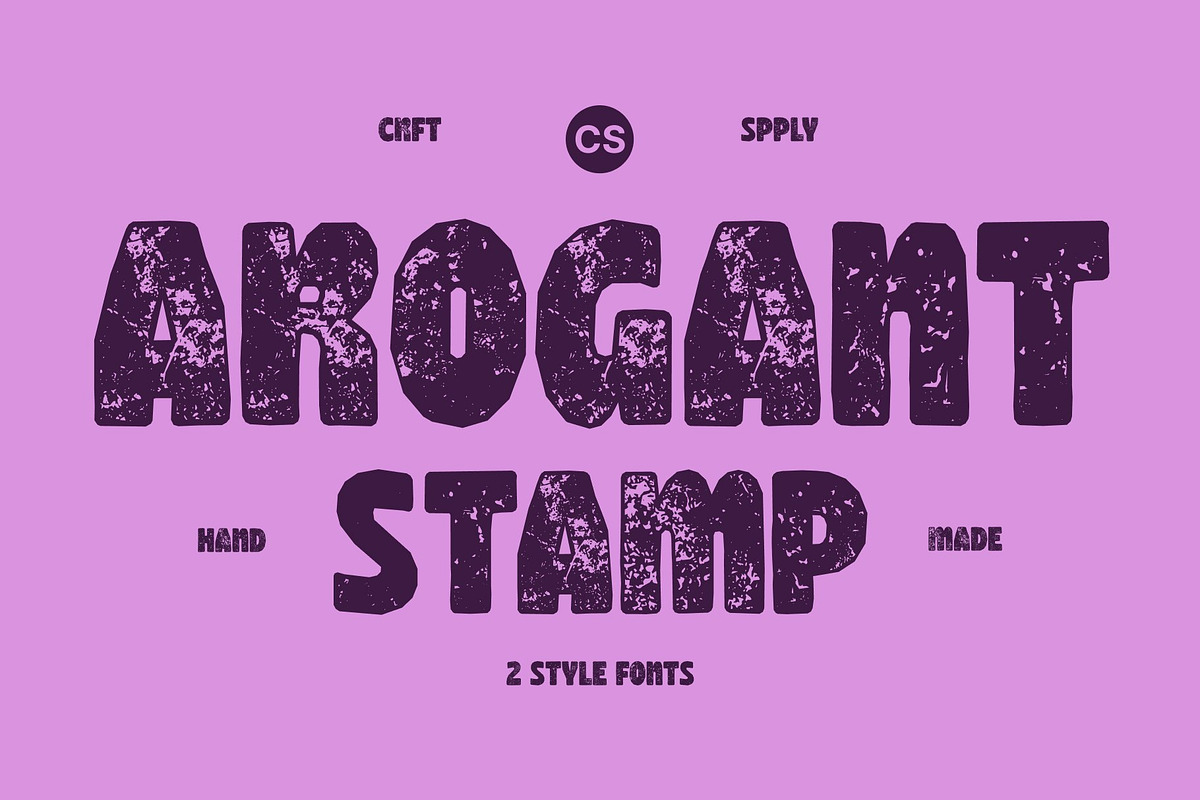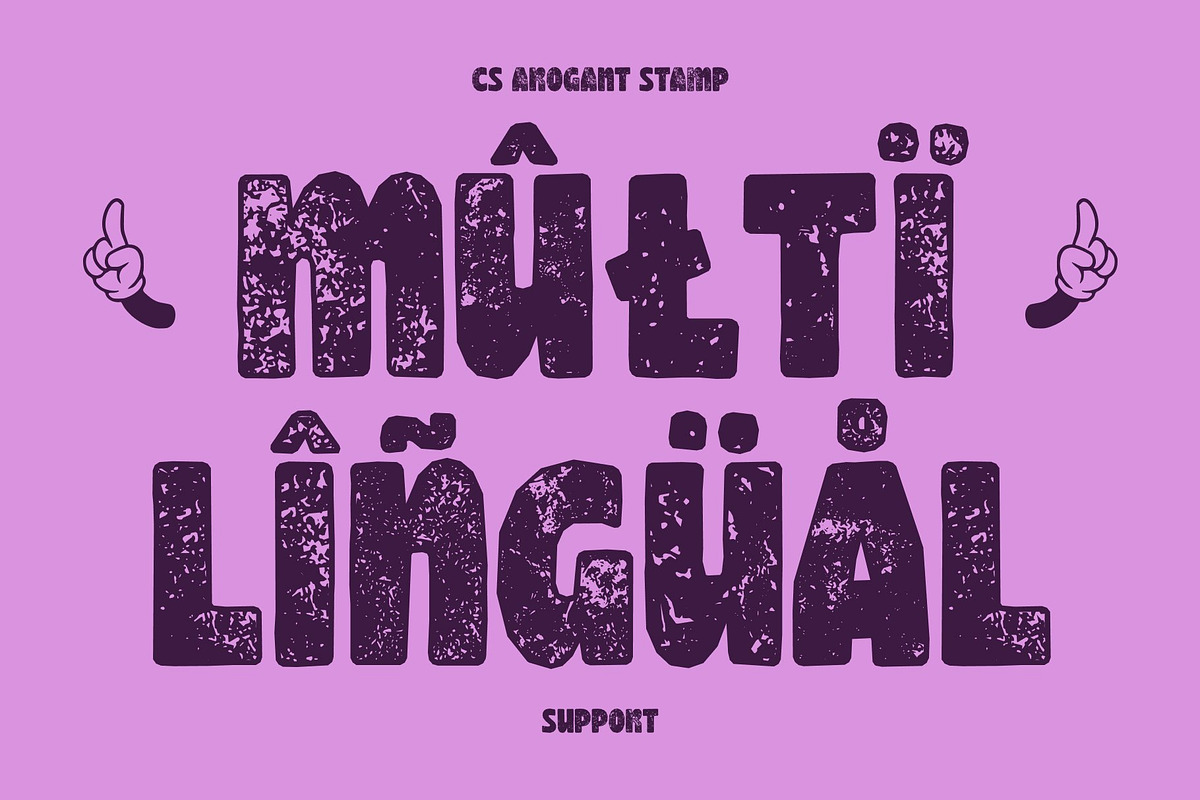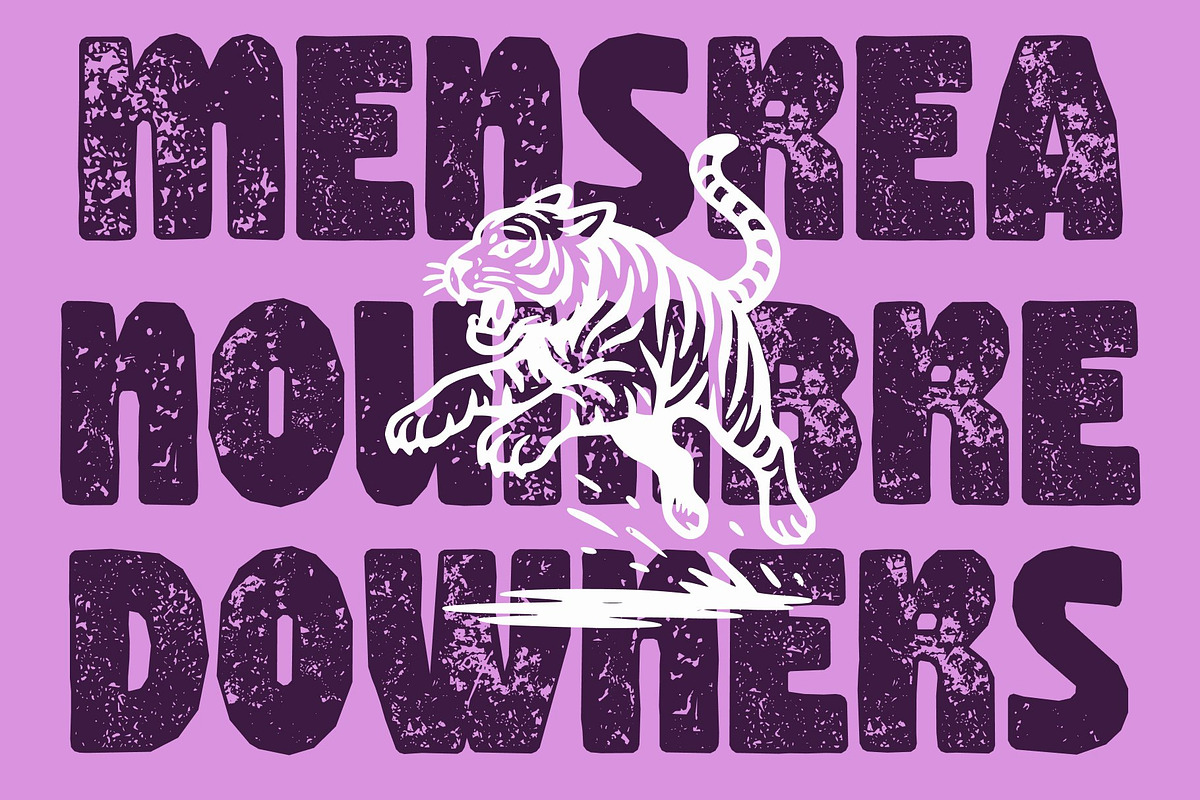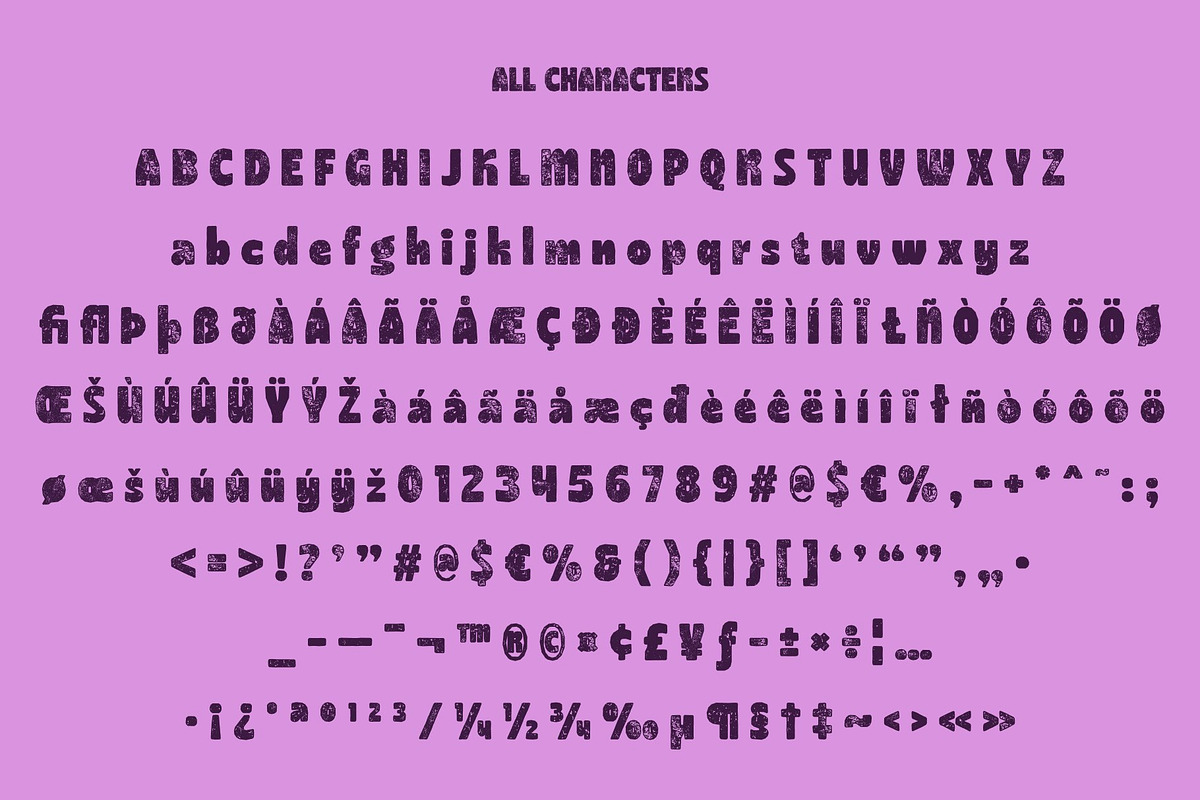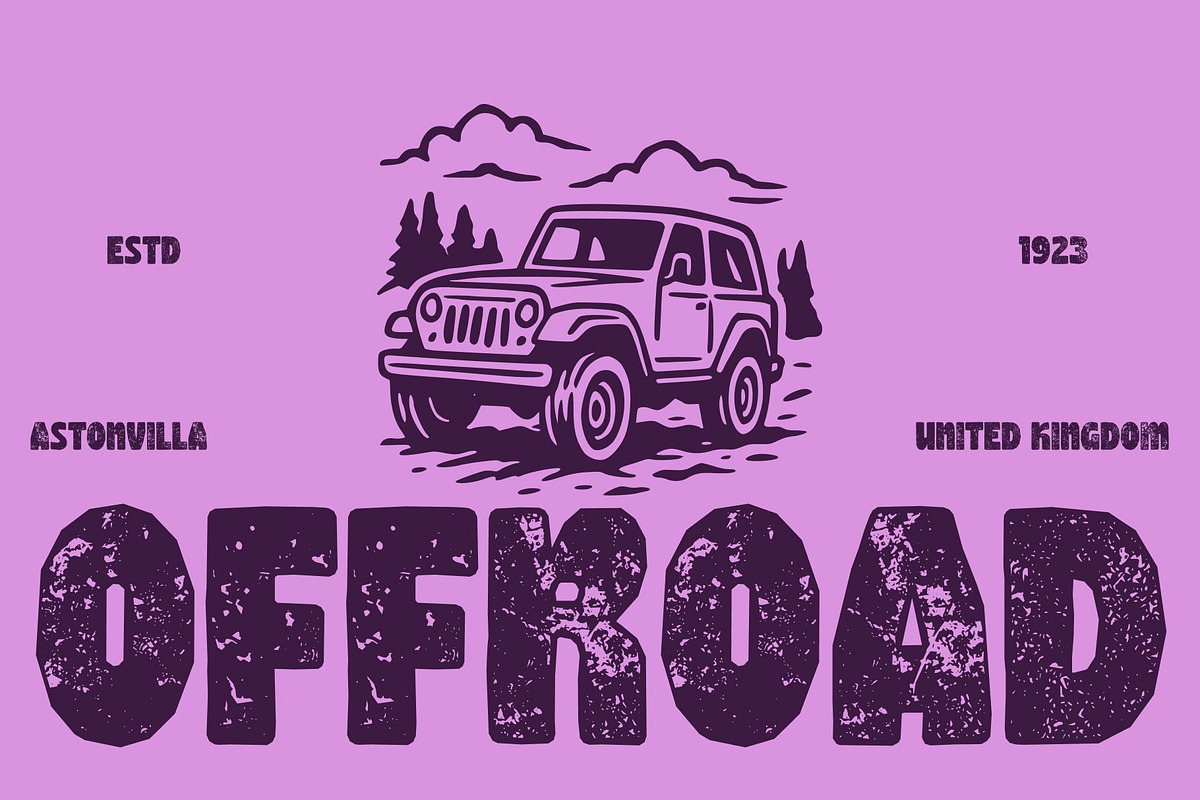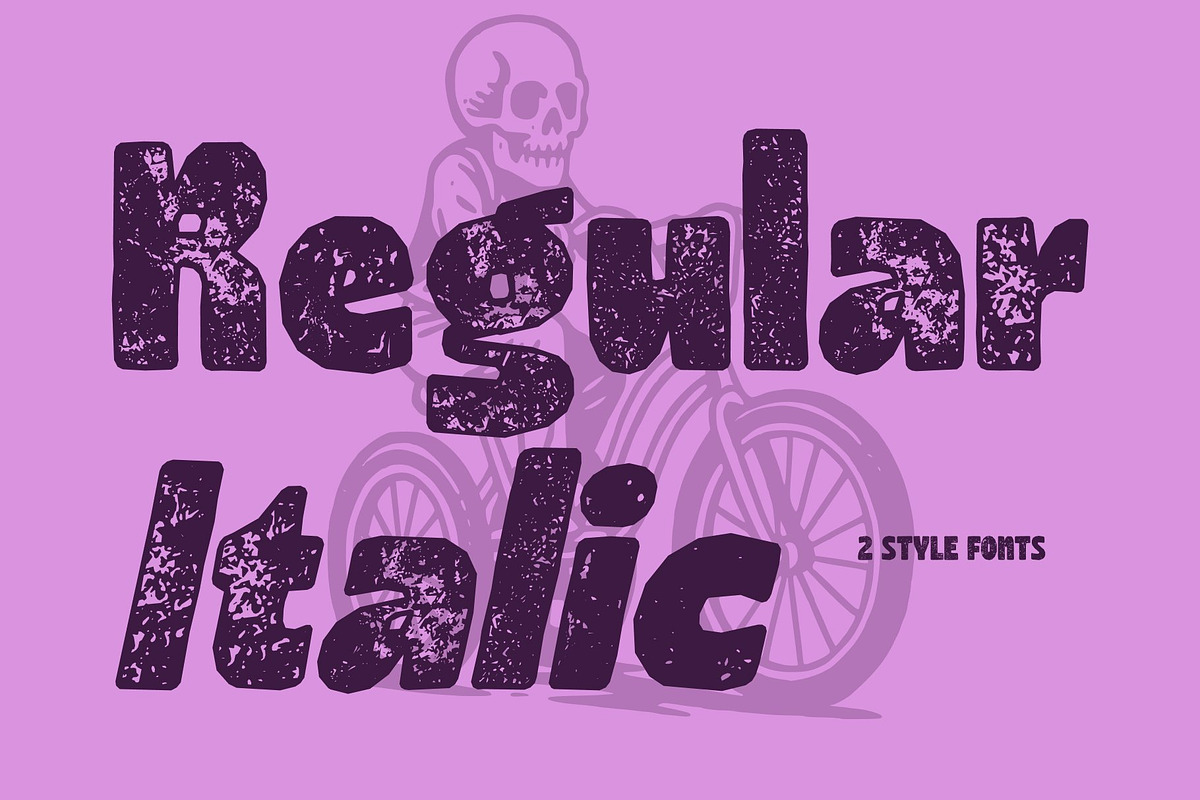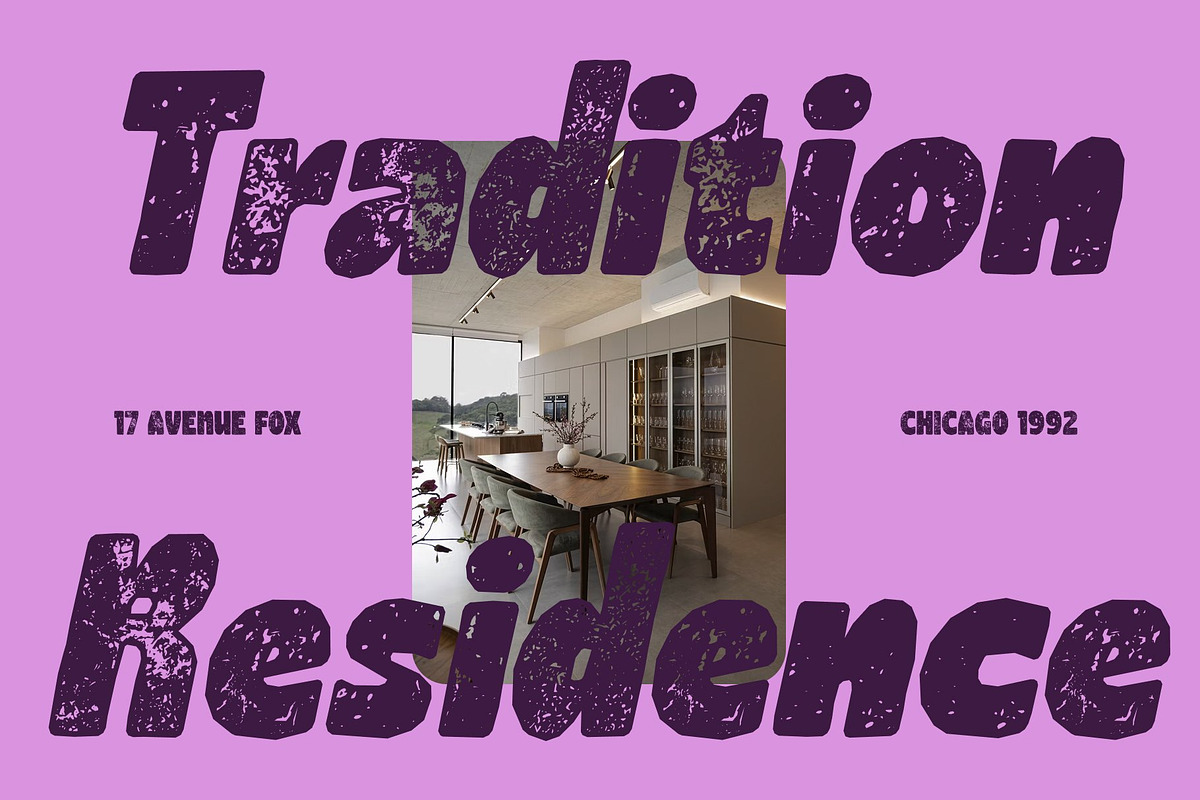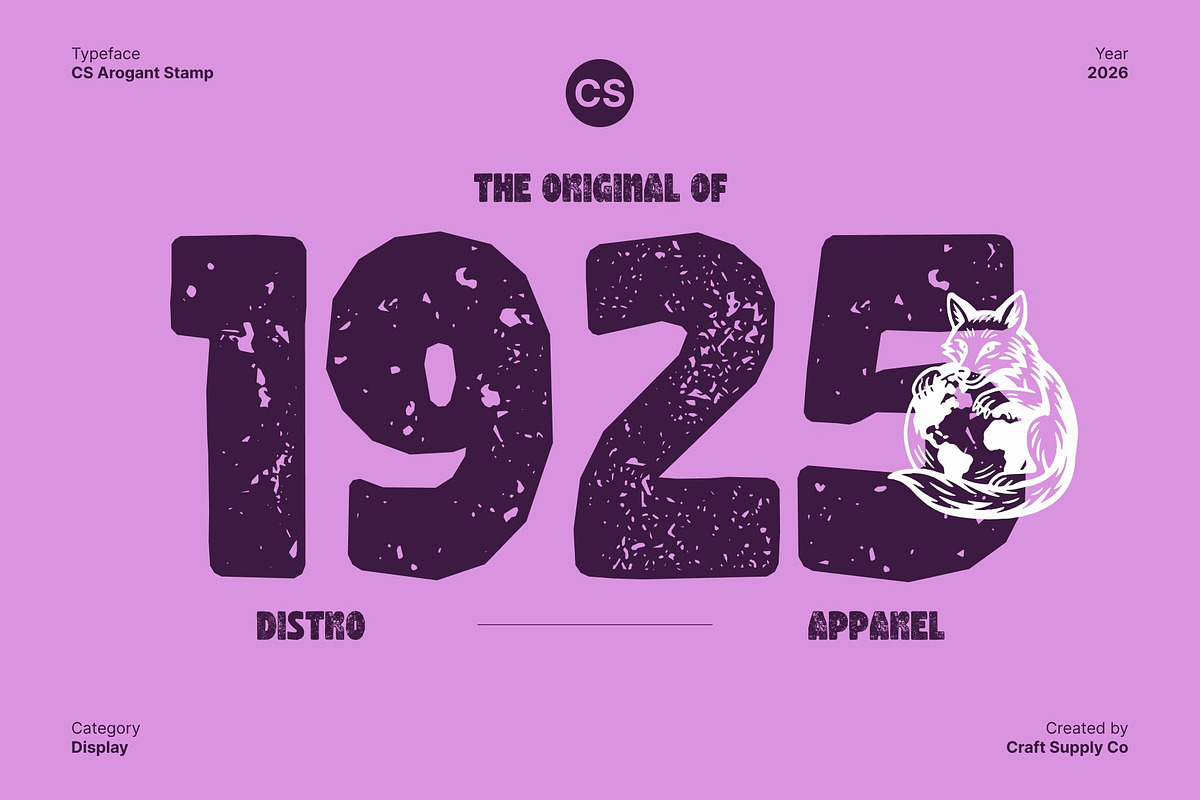
CS Arogant Stamp
CS Arogant Stamp – Bold Fun with Textured Attitude
Playful Boldness Meets Modern Design This is a bold modern sans-serif font that blends confident, solid shapes with a cheerful and funky spirit. Its strong letterforms create immediate visual impact, while playful proportions inject a sense of fun and creative energy. Designed to stand out, this font delivers a bold personality without losing its modern clarity.
Clean Structure with Expressive Character At its core, this font maintains a clean and readable structure, making it highly versatile for display use. Subtle quirks such as unexpected curves and lively proportions add expressive charm, giving the font a friendly and energetic tone. This balance makes it ideal for designs that want to feel bold, modern, and approachable all at once.
Stamped Texture for Vintage and Artistic Depth The stamp effect introduces a textured, slightly rough finish that gives the font a handcrafted and authentic feel. This organic texture adds a touch of vintage character and artistic imperfection, transforming the clean modern forms into something more expressive and visually rich. The result is typography that feels alive, tactile, and full of personality.
Made to Stand Out Across Creative Media This is perfect for music festivals, youth branding, fashion packaging, posters, merchandise, and digital content. Its bold shapes combined with the stamped texture ensure strong visibility and memorable impact, especially in headline and logo applications.